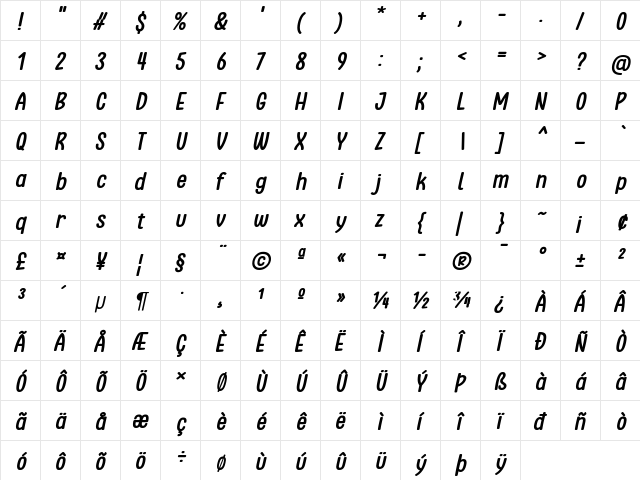
Clambake October Six Bold Italic Font Preview
Design Context for Clambake October Six Typeface
Clambake October Six takes a measured approach to typography — its balanced proportions and neutral character make it a reliable workhorse for both digital and print work. The dynamic lean of this cut emphasises speed and emphasis in any layout. Its bold stroke weight gives it real presence on the page.
Pro Tip: Try Clambake October Six for annotation and caption copy alongside an upright companion — the contrast in angle creates a dynamic but ordered typographic system.